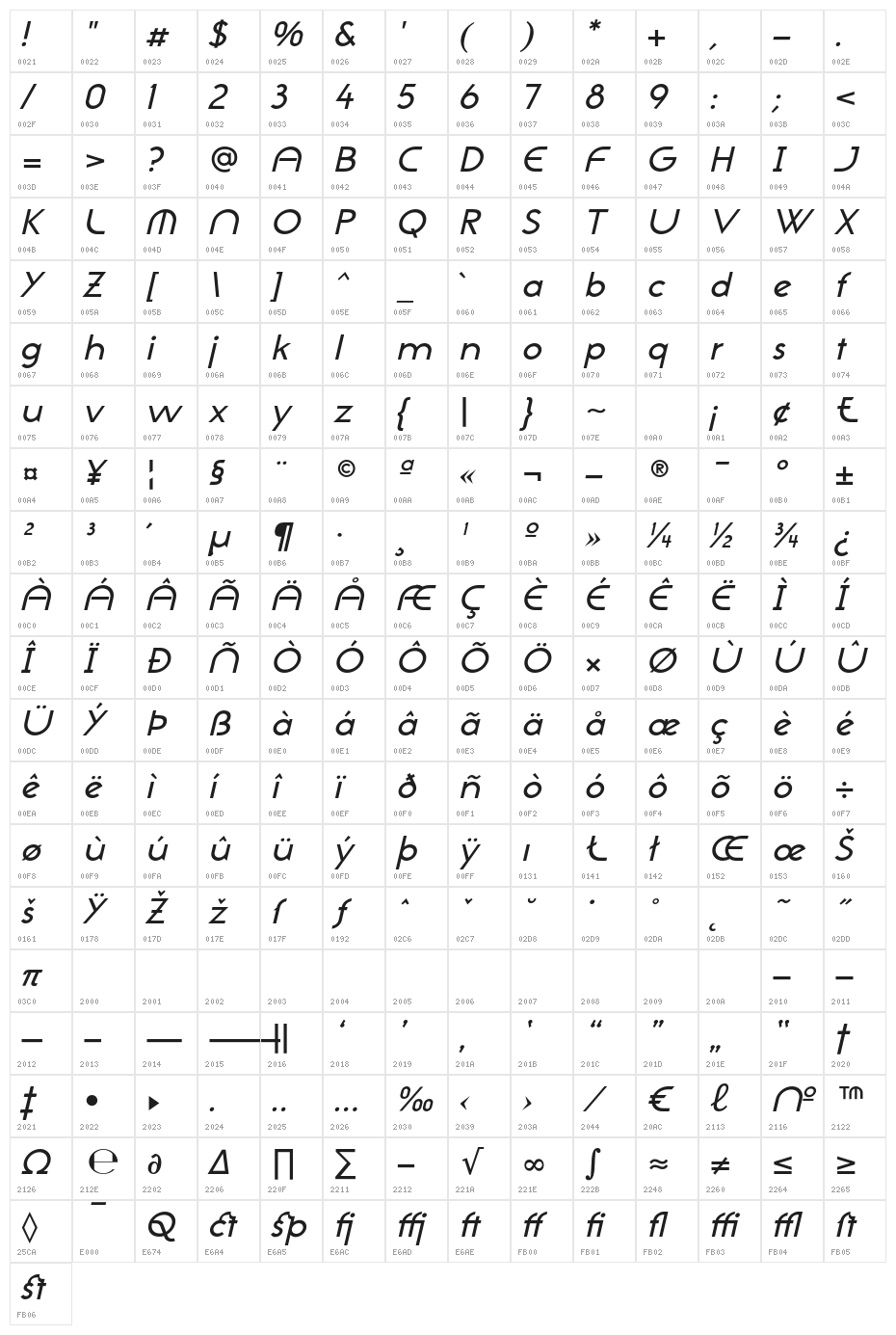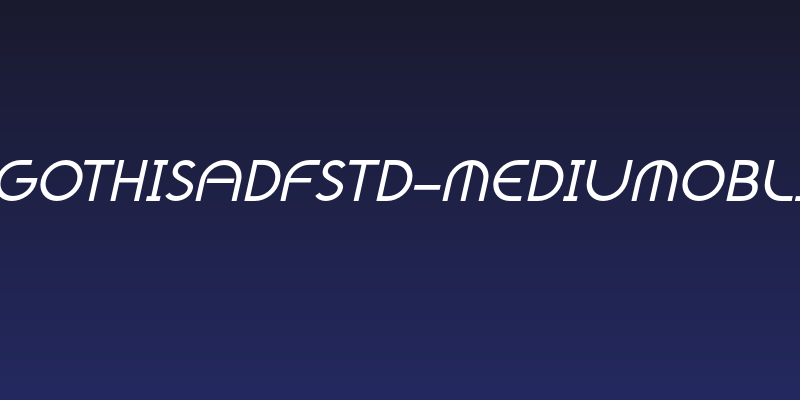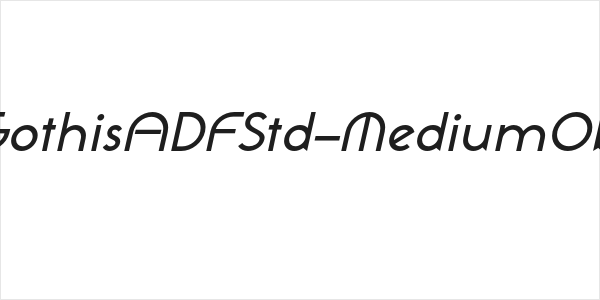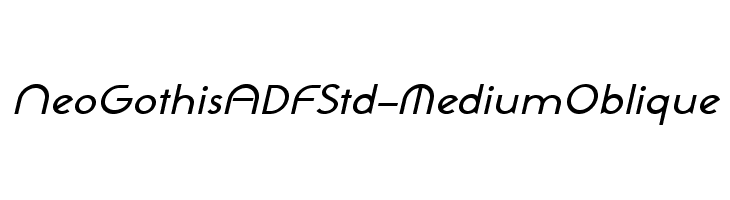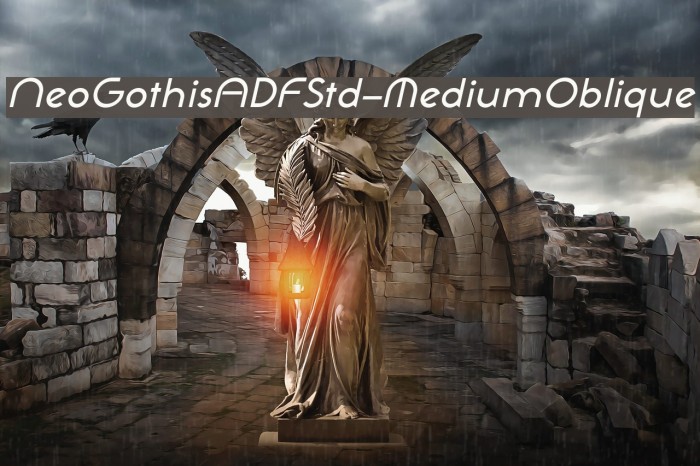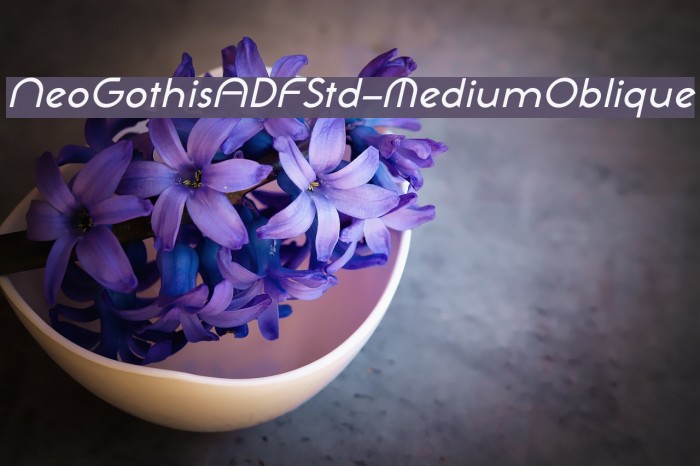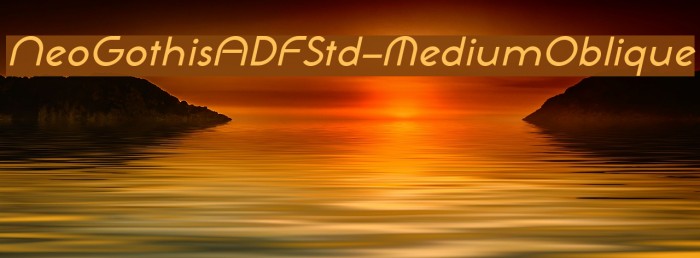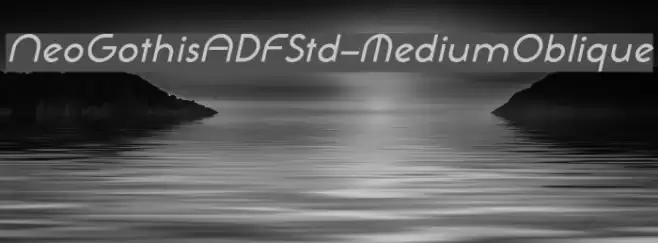
NeoGothisADFStd-MediumOblique Font
NeoGothisADFStd-MediumOblique Description
This font features a sleek and modern design with a distinct oblique style, giving it a dynamic and forward-leaning appearance. The characters are crafted with smooth curves and sharp edges, creating a sense of movement and energy. The uppercase letters are bold and assertive, while the lowercase letters maintain a consistent flow, enhancing readability. The numerals are clear and well-defined, making them suitable for various applications. Special characters are included, adding versatility to the font's usage. Overall, this font exudes a contemporary and professional vibe, ideal for projects that require a modern touch.
| Use Case | Headlines, Logos, Digital Media |
| Proposed Projects | Ideal for branding, advertising, digital media, and modern editorial design. |